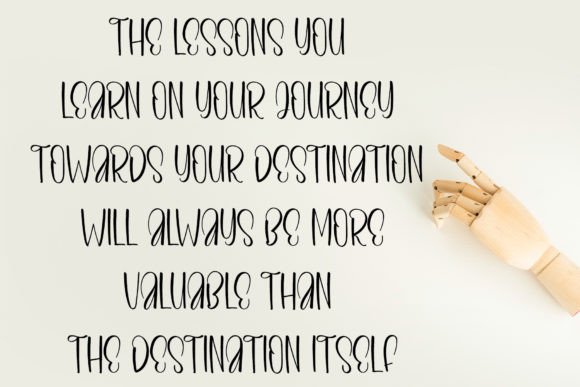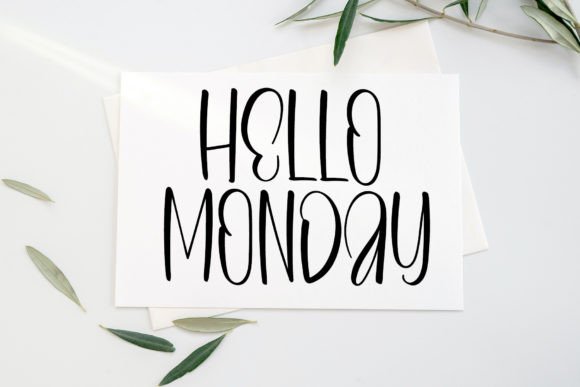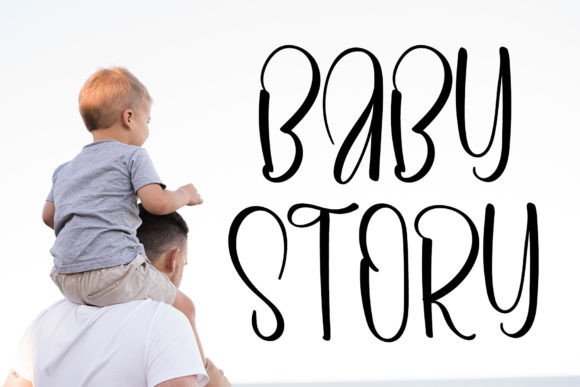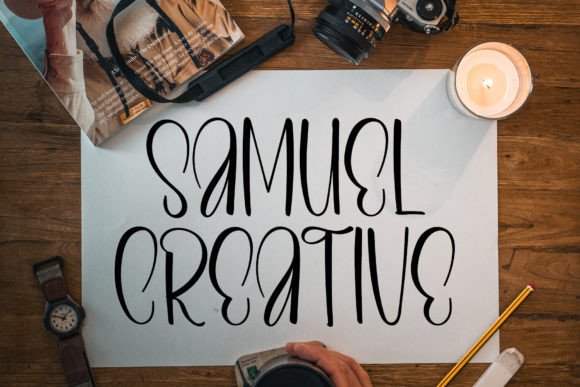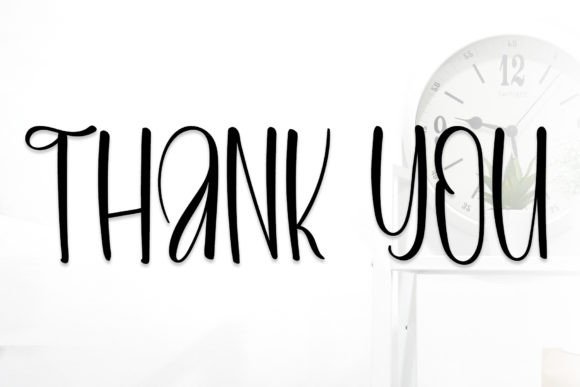
Introduction to Backdate Font
You’ve spent hours pouring over design ideas, and finally, the perfect concept comes to life. But there’s something missing – a touch of elegance and sophistication that elevates your project from great to extraordinary. That’s where the Backdate Font comes in – a beautiful, handwritten font that adds a luxurious spark to any design project.
| 👤 Author | YanStudio |
As a designer, you understand the importance of choosing the right font to convey your message. With the Backdate Font, you can create stunning visual effects that grab attention and leave a lasting impression. This versatile design resource is perfect for a wide range of creative projects, from branding and marketing materials to digital art and print design.
Whether you’re working on a free download or a high-quality design, the Backdate Font is a valuable addition to your toolkit. With its unique, dancing characters and transparent background, this font is sure to add a touch of magic to your next creative project.
Key Features of Backdate Font
- Unique Vintage Design: The Backdate Font features a unique and elegant vintage design that’s perfect for creative projects requiring a touch of nostalgia.
- Perfect for Creative Projects: The Backdate Font is ideal for creative projects such as invitations, posters, and other design materials that require a vintage touch.
Honest Review: Backdate Font
As a designer, I’m always on the lookout for high-quality design resources to enhance my creative projects. Recently, I stumbled upon the Backdate Font, which I’ll be reviewing in this post.
- ✨ High-quality design: The Backdate Font is incredibly well-crafted, with a unique and stylish aesthetic that’s perfect for creative projects.
- ✨ Transparent background: The font’s transparent background makes it easy to work with, allowing for seamless integration with various design elements.
- ⚠️ Limited font variations: While the font itself is excellent, I wish there were more variations available, such as bold or italic styles.
- ⚠️ Not suitable for all projects: Due to its unique style, the Backdate Font might not be the best fit for every design project, requiring some careful consideration.
Overall, I’m impressed with the Backdate Font’s high quality and versatility. While it may have some limitations, I believe it’s a valuable addition to any designer’s toolkit. With its free download and transparent background, it’s an excellent resource for creative projects.
Tips for Getting the Most Out of Backdate Font
To get the most out of Backdate Font, experiment with different font sizes, colors, and combinations with other design elements. You can also use the font in conjunction with other design resources, such as graphics and images, to create unique and eye-catching designs.
Backdate Font is commonly used in creative projects such as graphic design, digital art, and typography. It’s also a popular choice for designers who want to add a vintage or retro touch to their designs. The font’s high-quality design and transparent background make it a versatile resource for designers of all levels.
Q: Is the Backdate Font suitable for high-quality print projects?
Yes, the Backdate Font is designed to meet the highest standards of quality and legibility, making it suitable for use in high-quality print projects. The font’s crisp, clean lines and precise typography ensure that your text will look sharp and clear, even at large sizes or in high-resolution prints.